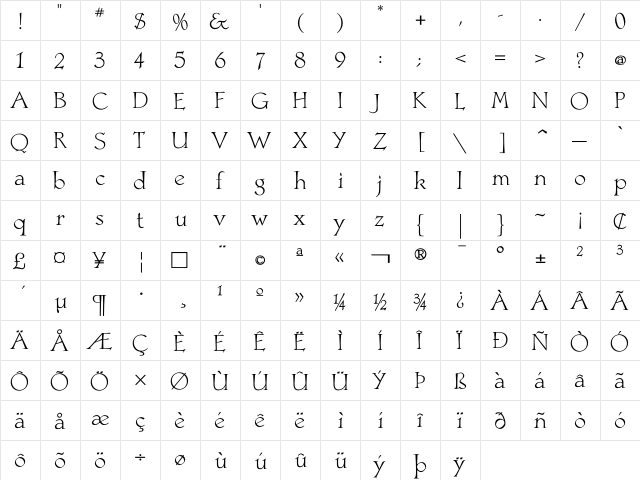
Astaire Pro Regular
| Foundry | David Bergsland for Bergsland Design |
| Designer | David Bergsland |
Design Context for Astaire Pro Typeface
Astaire Pro offers clean, dependable letterforms without strong stylistic allegiance, making it a practical choice for designers who need flexibility.